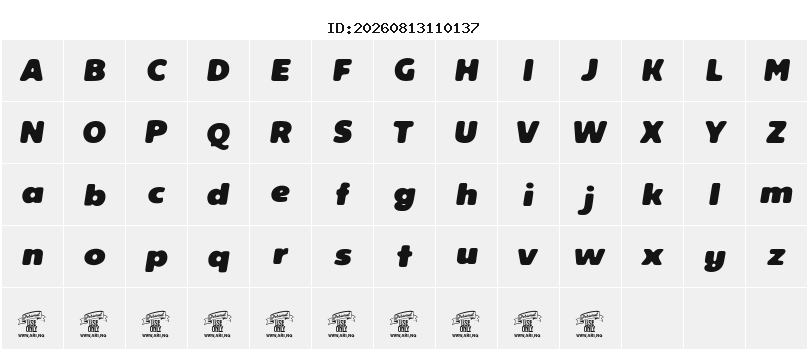
• Font Name: Reeler Personal Use Only
• Designer: Noah Kinard and MÂns Greb‰ck
• Manufacturer: MÂns Greb‰ck
About Reeler Personal Use Only.ttf
Reeler Personal Use Only.ttf is a modern, elegant sans-serif font designed for ultimate readability and visual harmony. Perfect for branding, headlines, web design, and print materials.